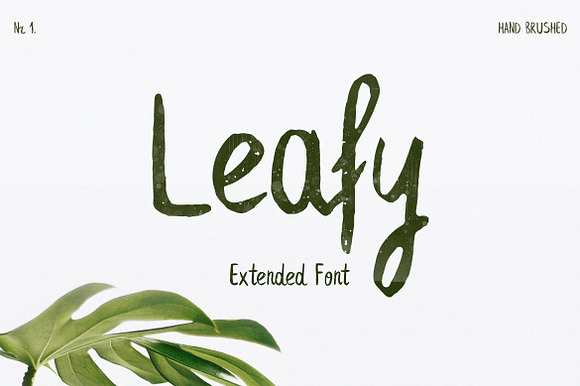
Leafy Extended Brush Font
What makes Leafy Extended Brush Font exciting is its natural expansion that captures the organic growth and flourishing vitality of botanical life through extended brush strokes that flow like branches reaching toward sunlight with graceful abundance. This enchanting typeface embodies the essence of natural growth and environmental harmony, combining organic brush movements with extended proportions that create expansive visual presence while resonating with audiences seeking authentic connection to nature and sustainable living. The font's extended botanical character and organic variations provide maximum natural impact while maintaining the readability essential for eco-conscious commercial applications that celebrate environmental stewardship. Its flourishing personality makes it perfect for brands that want to communicate growth, sustainability, and the transformative power of extended natural beauty and environmental consciousness.
The Leafy Extended Brush Font family includes regular and bold weights, featuring extended botanical alternates, organic ligatures, and nature-inspired flourishes. The character set incorporates leaf symbols, natural numerals, and eco-friendly punctuation marks that enhance the font's extended botanical character and provide designers with comprehensive nature typography solutions for authentic green brand expressions with maximum organic presence.
Whether you're creating sustainable brand identities, designing botanical marketing materials, or developing environmental communications, Leafy Extended Brush Font Free Download provides the extended natural authenticity your eco-conscious projects require. This premium extended brush font excels in applications where environmental credibility and extended organic presence are crucial for brand positioning and eco-conscious consumer engagement in competitive green markets. The font's extended botanical qualities work beautifully across natural packaging, environmental signage, and digital sustainability platforms, making it an essential tool for designers creating memorable eco-friendly brand experiences with expansive natural impact. Environmental companies and green organizations choose this font for its ability to communicate organic authenticity while maintaining professional appeal and market credibility in sustainability-focused demographics. The comprehensive character support includes botanical symbols and eco-friendly glyphs, expanding its versatility for global environmental applications and multilingual green communications with extended reach. Professional designers appreciate its perfect balance of extended natural expression and functional readability, ensuring projects remain both environmentally authentic and practically effective for eco-conscious audiences. When you incorporate this exceptional extended brush font into your green communications, you're selecting a typography solution that celebrates extended botanical beauty and environmental stewardship, ensuring your brand connects with nature-loving audiences while maintaining the organic credibility essential for success in competitive sustainability markets and environmental industries that promote natural products, ecological awareness, and extended commitment to environmental protection and sustainable living practices.